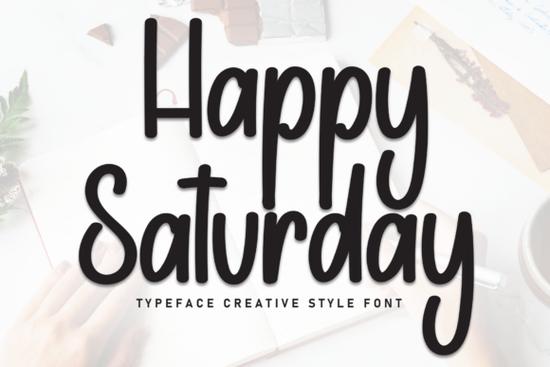
If you're looking for a handwritten font that feels warm, personal, and effortlessly stylish, the Happy Saturday Font might be exactly what your next project needs. Designed with care and character, it brings a relaxed yet polished vibe to everything from social media quotes to small business branding. Whether you’re creating custom mugs, printable wall art, or logo mockups for Etsy, this font adds a touch of authenticity without trying too hard.
What makes Happy Saturday stand out is how each letter carries its own subtle personality slight variations in stroke weight, gentle curves, and organic spacing give it a natural handwriting feel. Unlike overly stylized script fonts that can be hard to read at small sizes, Happy Saturday maintains clarity while still feeling expressive. That balance is especially useful if you’re designing for print-on-demand products where legibility matters just as much as aesthetics.
When should you use Happy Saturday?
This font shines in projects that call for a friendly, approachable tone. Think:
- Branded packaging for artisanal goods (think coffee bags, soap labels, or bakery boxes)
- Inspirational quote graphics for Instagram or Pinterest
- Wedding or event stationery with a casual-chic mood
- Hand-lettered-style merchandise like tote bags or T-shirts
It’s not ideal for body text or highly formal contexts but that’s not what it’s meant for. Happy Saturday is a display font first and foremost, built to catch the eye and convey warmth in just a few words.
How does it compare to other handwritten fonts?
If you’ve browsed Creative Fabrica’s script collection, you’ve probably seen fonts like Rainbow Candy, which leans playful and bouncy, or Arkina Duo, known for its elegant contrast and professional flair. Happy Saturday sits comfortably between those extremes less whimsical than Rainbow Candy, less formal than Arkina Duo.
For everyday charm, you might also consider Athaya, which has a similar organic flow but with more pronounced swashes. Or if you prefer something ultra-minimal, Norelia Daily offers clean lines and modern simplicity. And if cheerful energy is your goal, Sunshine Lemons delivers bright, bubbly letterforms perfect for kids’ products or summer-themed designs.
Each of these fonts serves a different mood. Happy Saturday’s strength is its versatility within a cozy, down-to-earth aesthetic it doesn’t shout; it smiles.
Tips for using Happy Saturday effectively
To get the most out of this font, keep these practical suggestions in mind:
- Pair it wisely. Combine Happy Saturday with a clean sans-serif (like Montserrat or Lato) for contrast. Avoid pairing it with another script clashing handstyles can look messy.
- Use generous spacing. Since it’s a connected script in some weights, give your words room to breathe. Tight kerning can make letters overlap awkwardly.
- Stick to short phrases. This font works best for headlines, names, or one-liners not paragraphs.
- Test print readability. If you’re using it on physical products, print a sample at actual size to ensure it’s clear from a normal viewing distance.
Who is this font really for?
Happy Saturday is especially well-suited for:
- Small business owners creating brand assets that feel human and inviting
- Crafters making personalized gifts or wedding decor
- Print-on-demand sellers designing quote-based apparel or home goods
- Digital planners or sticker creators who want a natural handwriting look without scanning real pen strokes
It’s not a “one-size-fits-all” font but that’s part of its appeal. Its charm lies in knowing exactly when to use it.
Before you download, ask yourself: Does my project need warmth over formality? Simplicity over drama? If yes, Happy Saturday could be your new go-to. And if you’re building a font library for varied moods, consider grabbing a few complementary styles like Sunshine Lemons Font or Norelia Daily Font so you’re ready for any creative request.
Quick checklist before using Happy Saturday:
- ✅ Test it in context on a mockup mug, shirt, or social post
- ✅ Pair with a neutral supporting font
- ✅ Avoid all-caps; lowercase or title case looks most natural